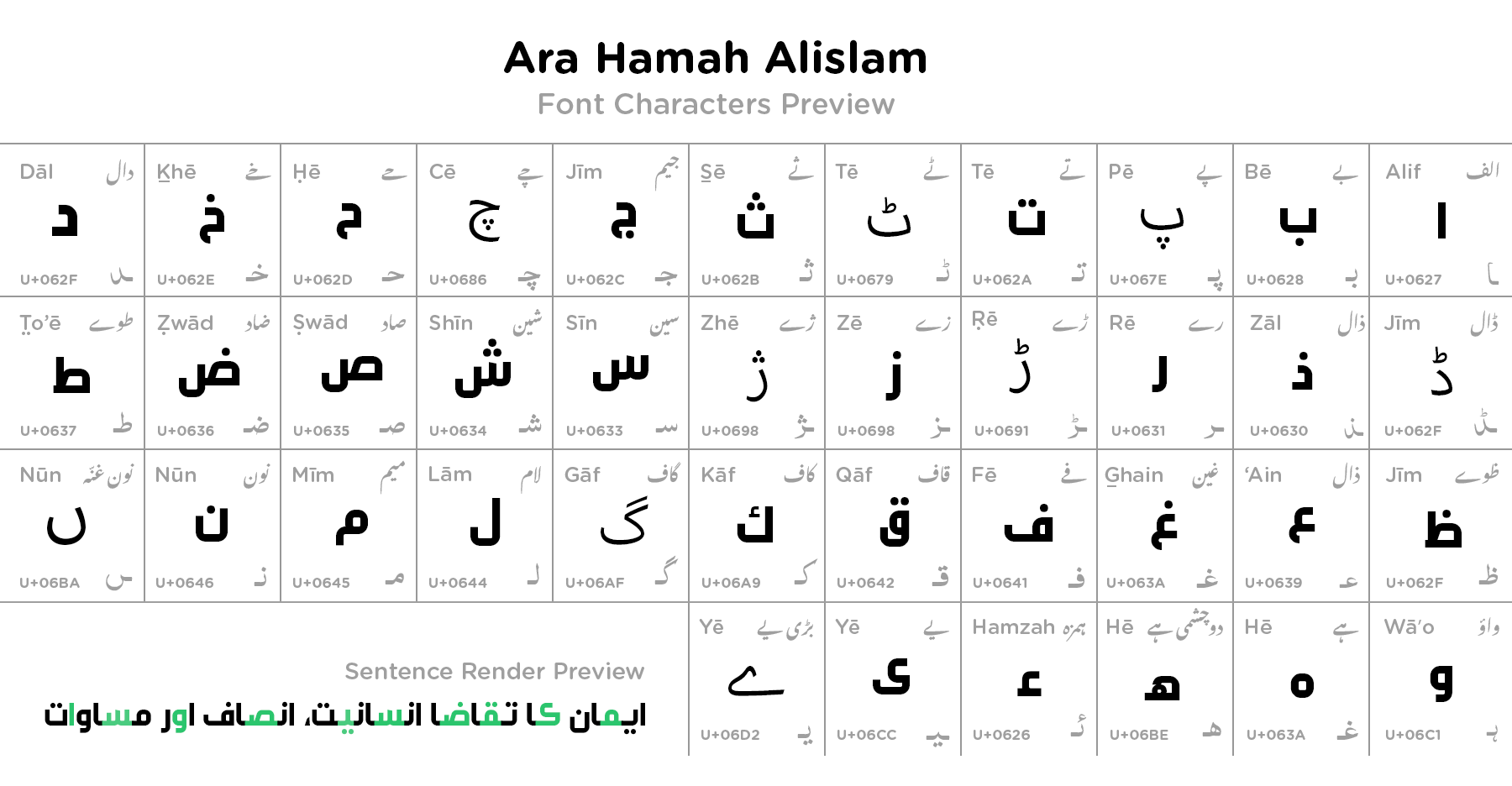
Ara Hamah Alislam
Ara Hamah Alislam is a bold and geometric Arabic font, offering an impactful appearance with its filled and wide letters. Designed by Nabil MRAD, a font designer from Hamah, Syrian Arab Republic, this font was introduced in 2017. Although it’s not exactly calligraphy, it follows the style of Arabic writing with modern design influences. It is manufactured and released under the trademark of iSktFalConS and ZakDesign. This font works with Arabic, Latin, Urdu, and Persian languages, making it useful for many projects with multilingual needs. With 270 characters and 265 glyphs, it has smooth letters with the same thickness throughout. Its strong strokes make it easy to read and give your text a commanding vibe.
Ara Hamah Alislam is a font characterized by soft corners and wide, well-aligned edges with small spaces between letters. It offers only one weight option, which may limit its practicality for some projects. The spacing between letters is uniform, following a monospaced format. While it can be used for reading long text passages, it is best suited for short texts due to its bold appearance. This font is commonly used for titles, headings, logos, and branding purposes. Despite its boldness, it maintains high legibility even at smaller sizes, although the text may appear a little condensed when viewed at low resolution. It supports various Unicode blocks, including Basic Latin, Latin-1 Supplement, Arabic, General Punctuation, Arabic Presentation Forms-A, and Arabic Presentation Forms-B.